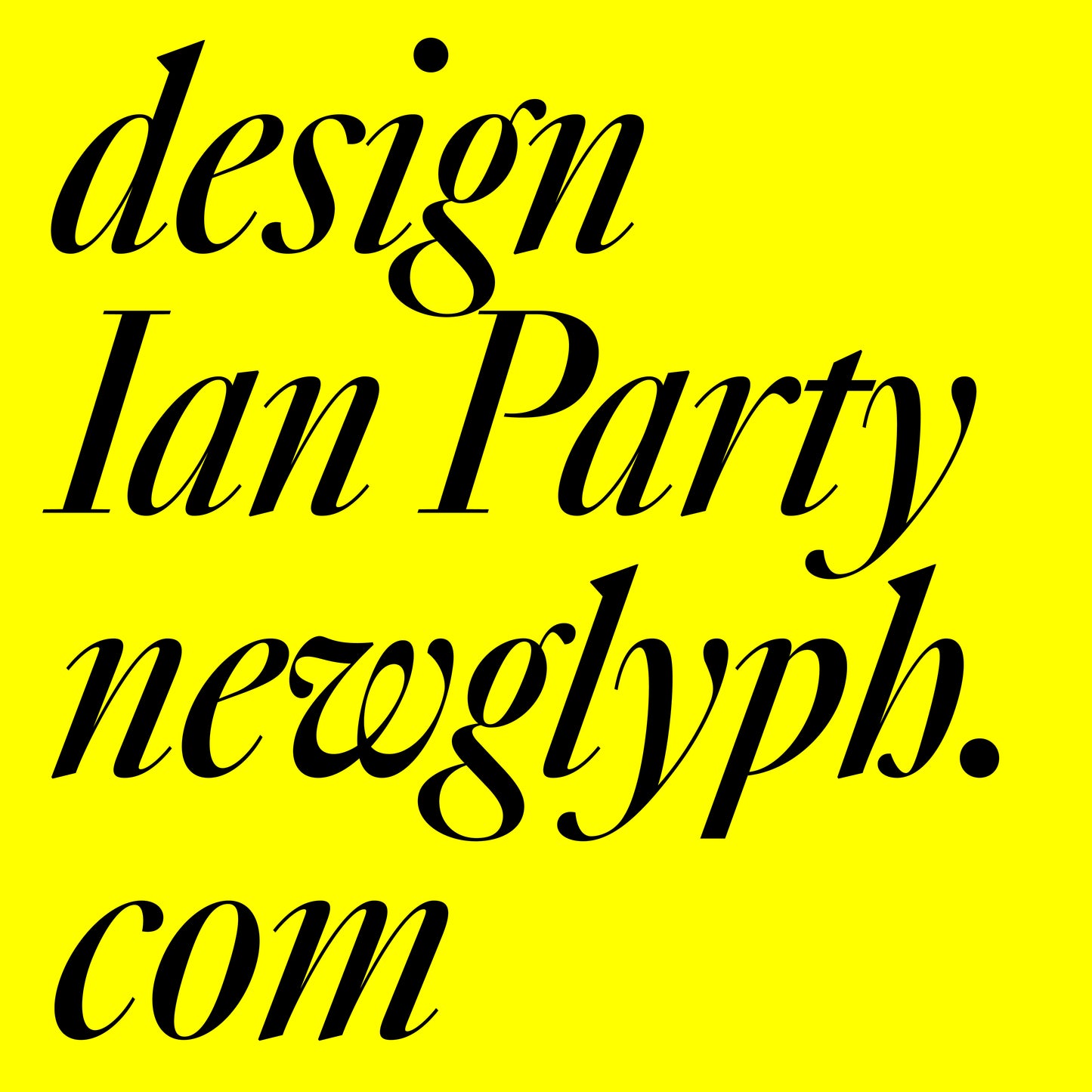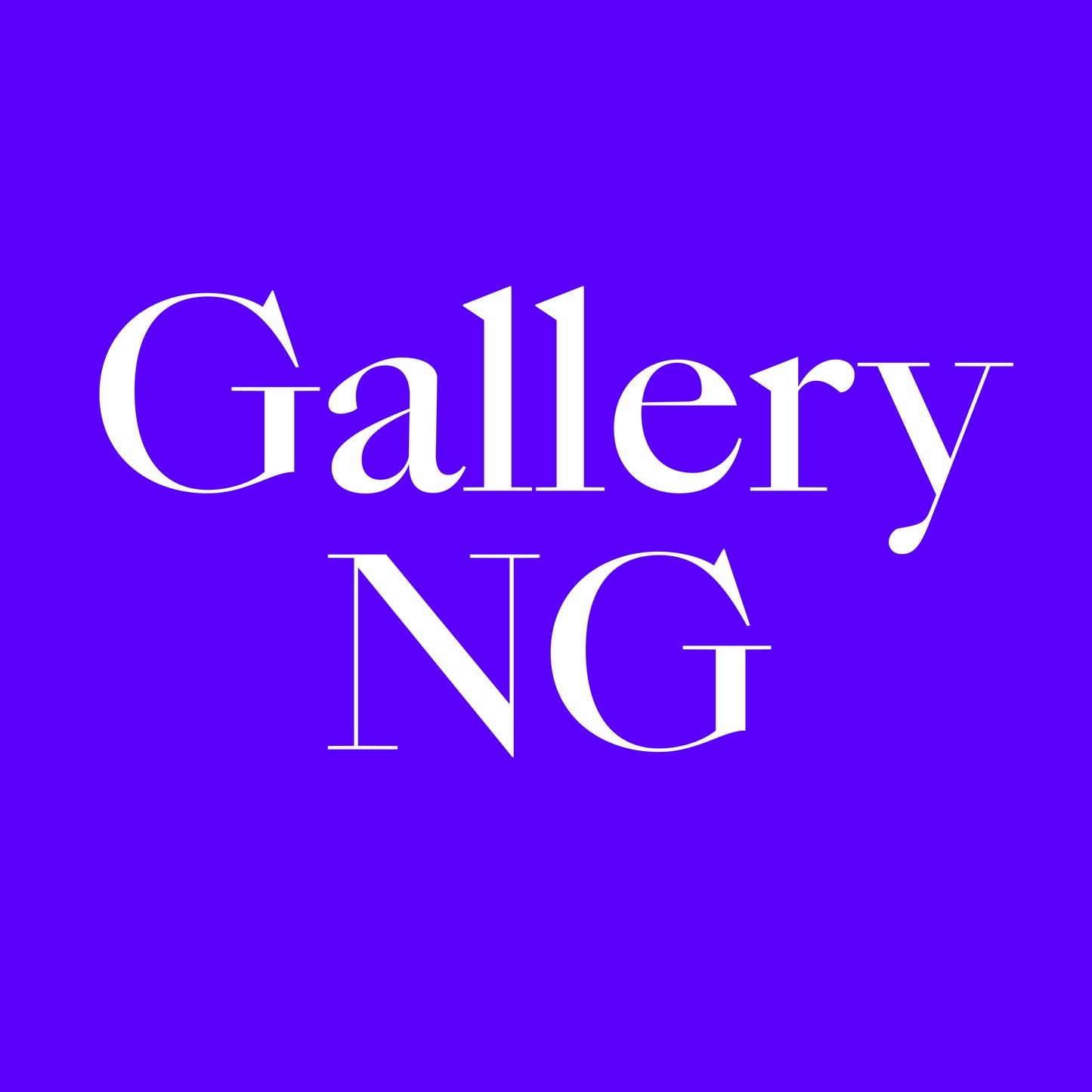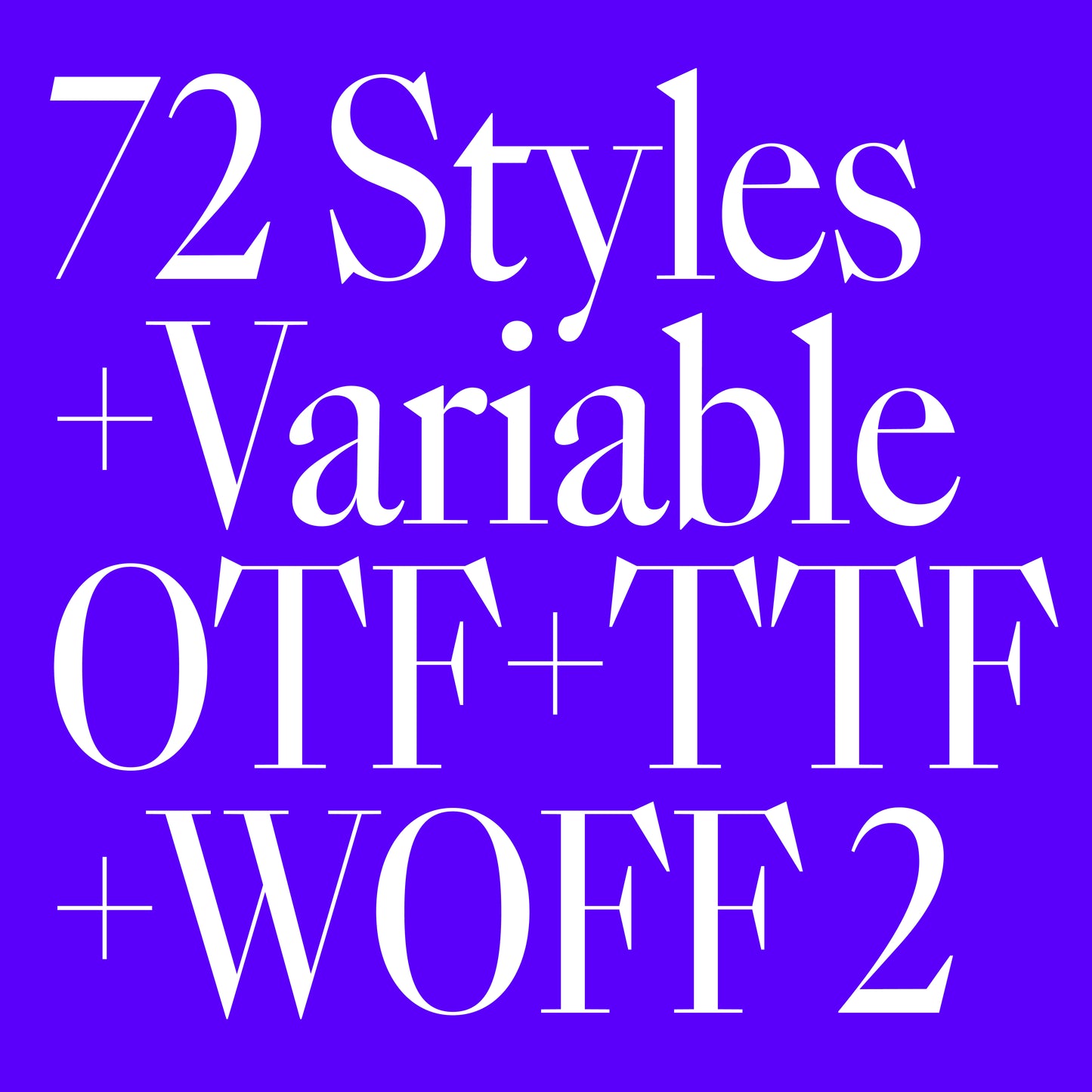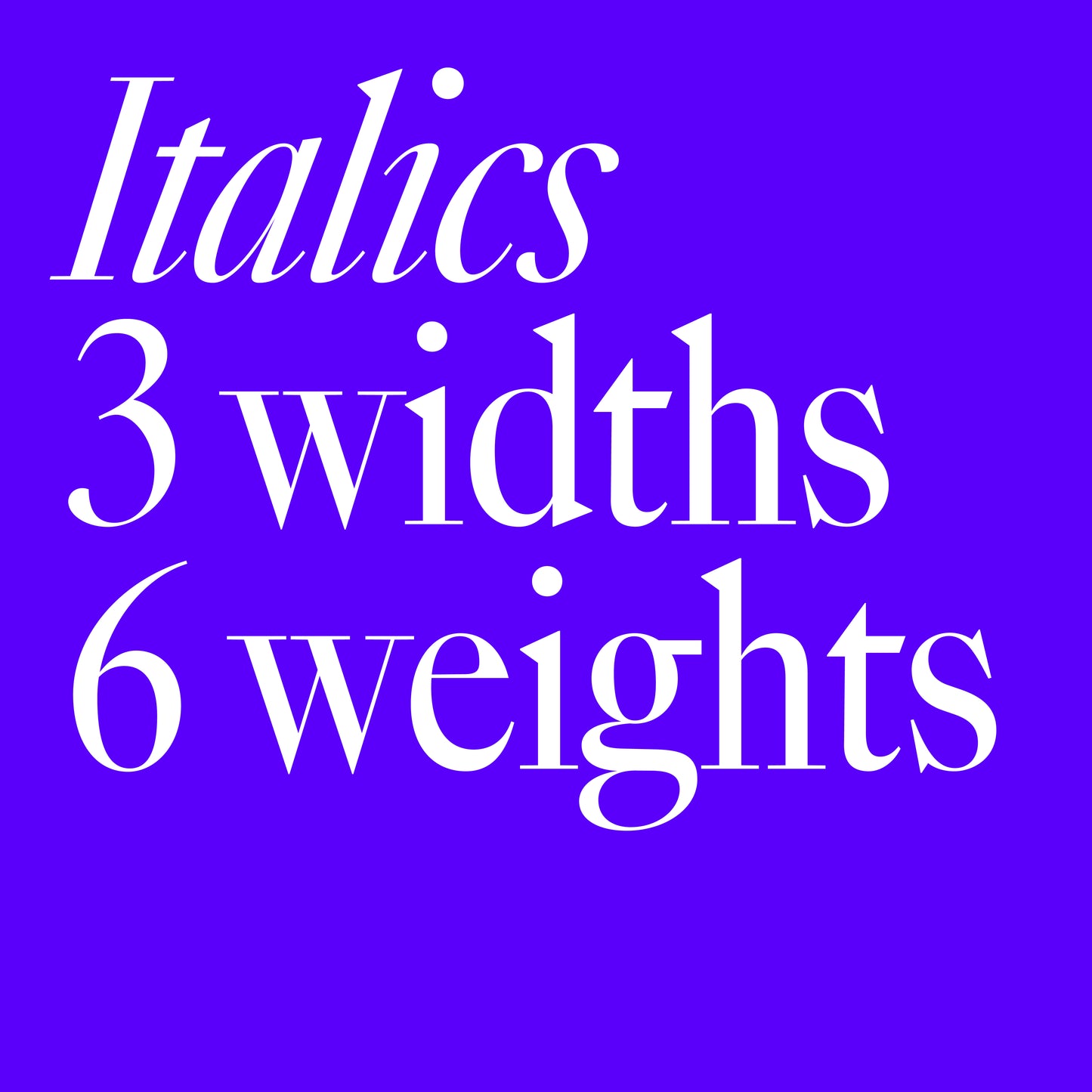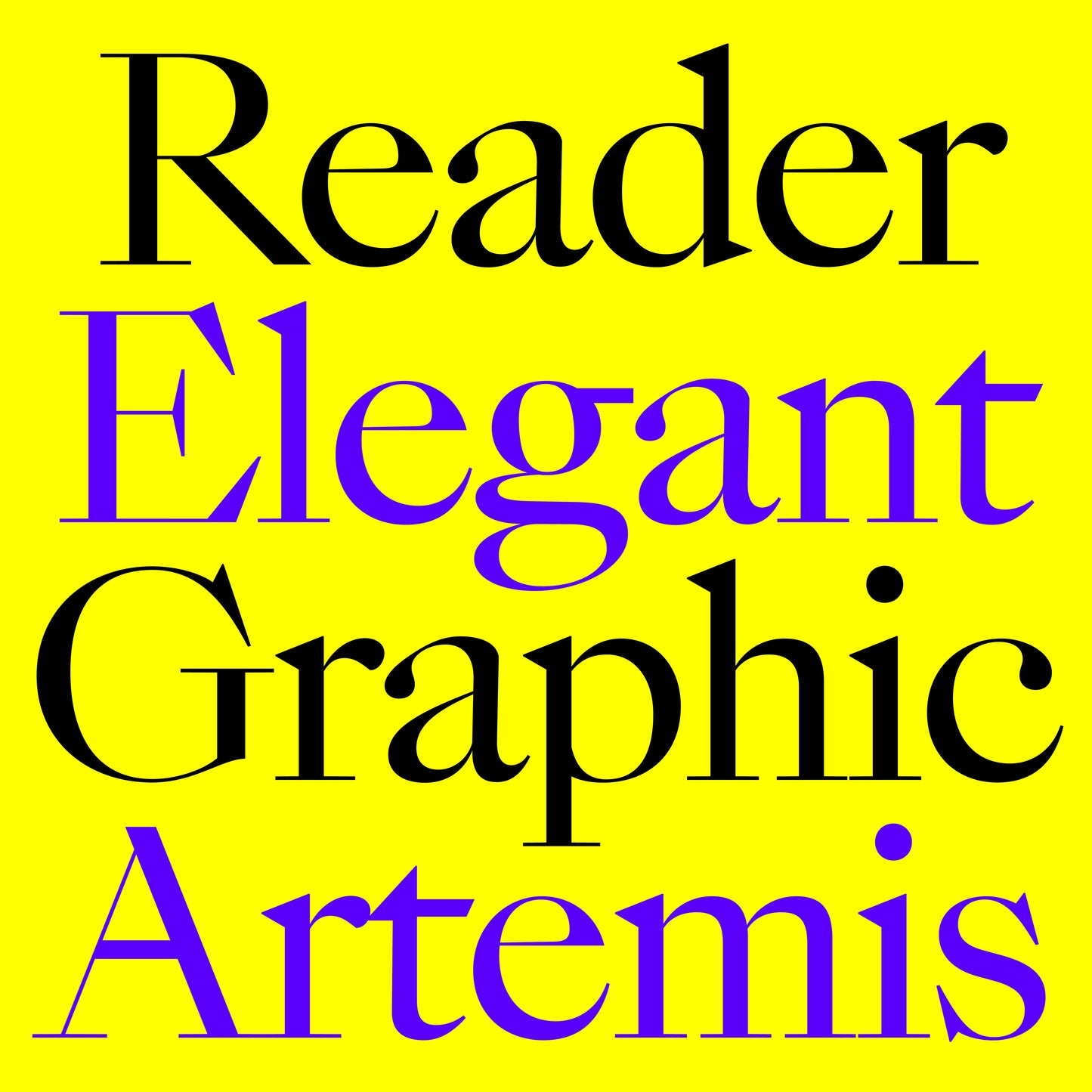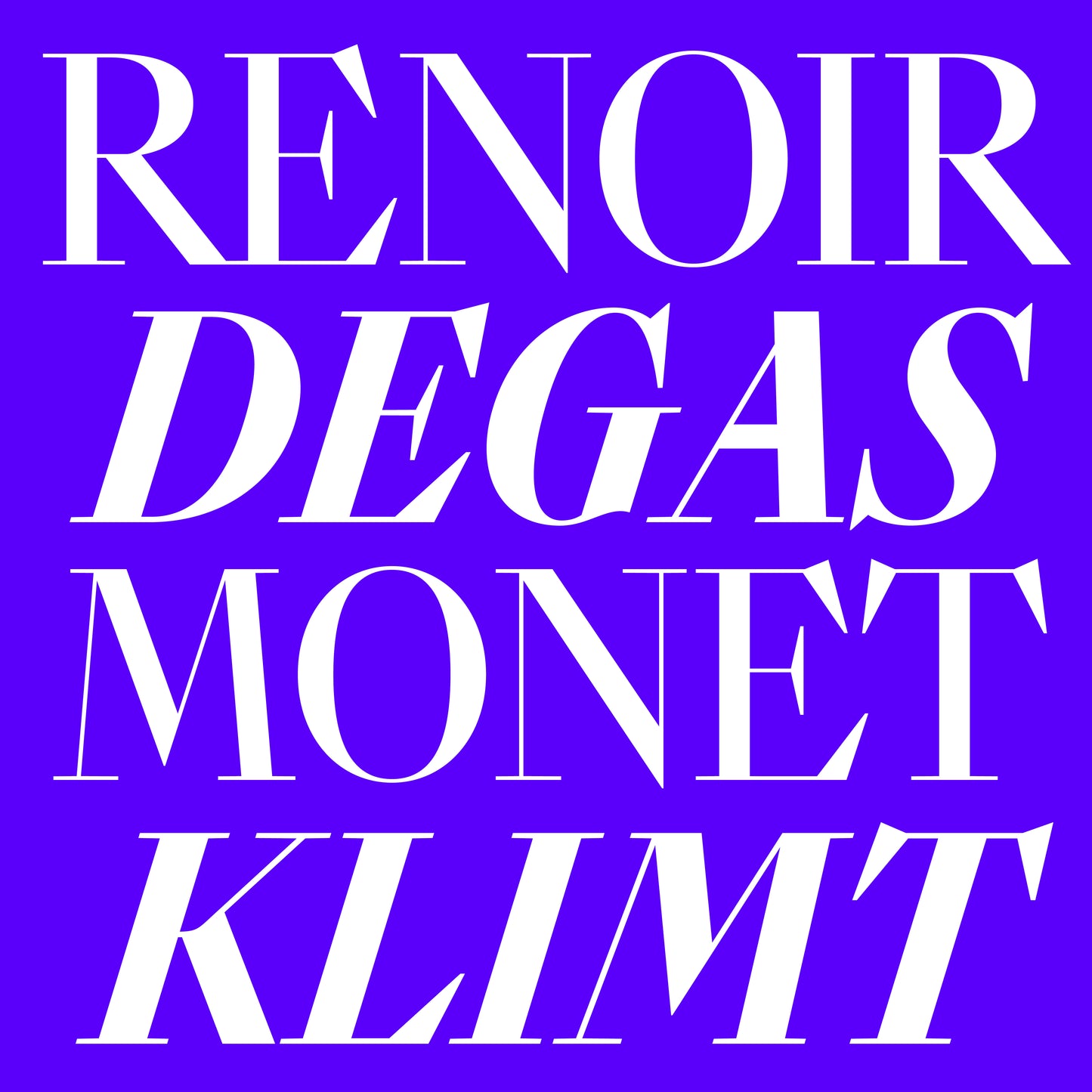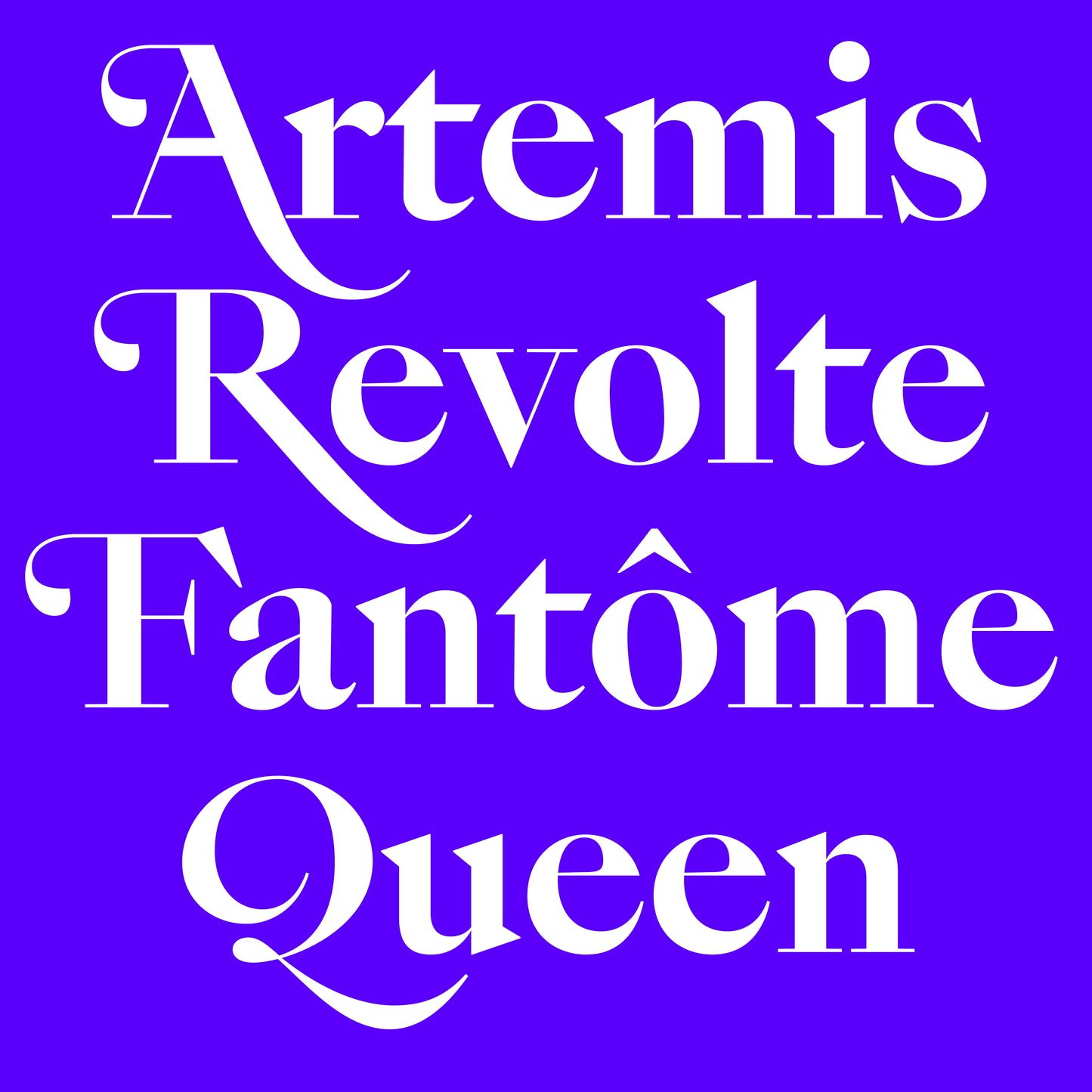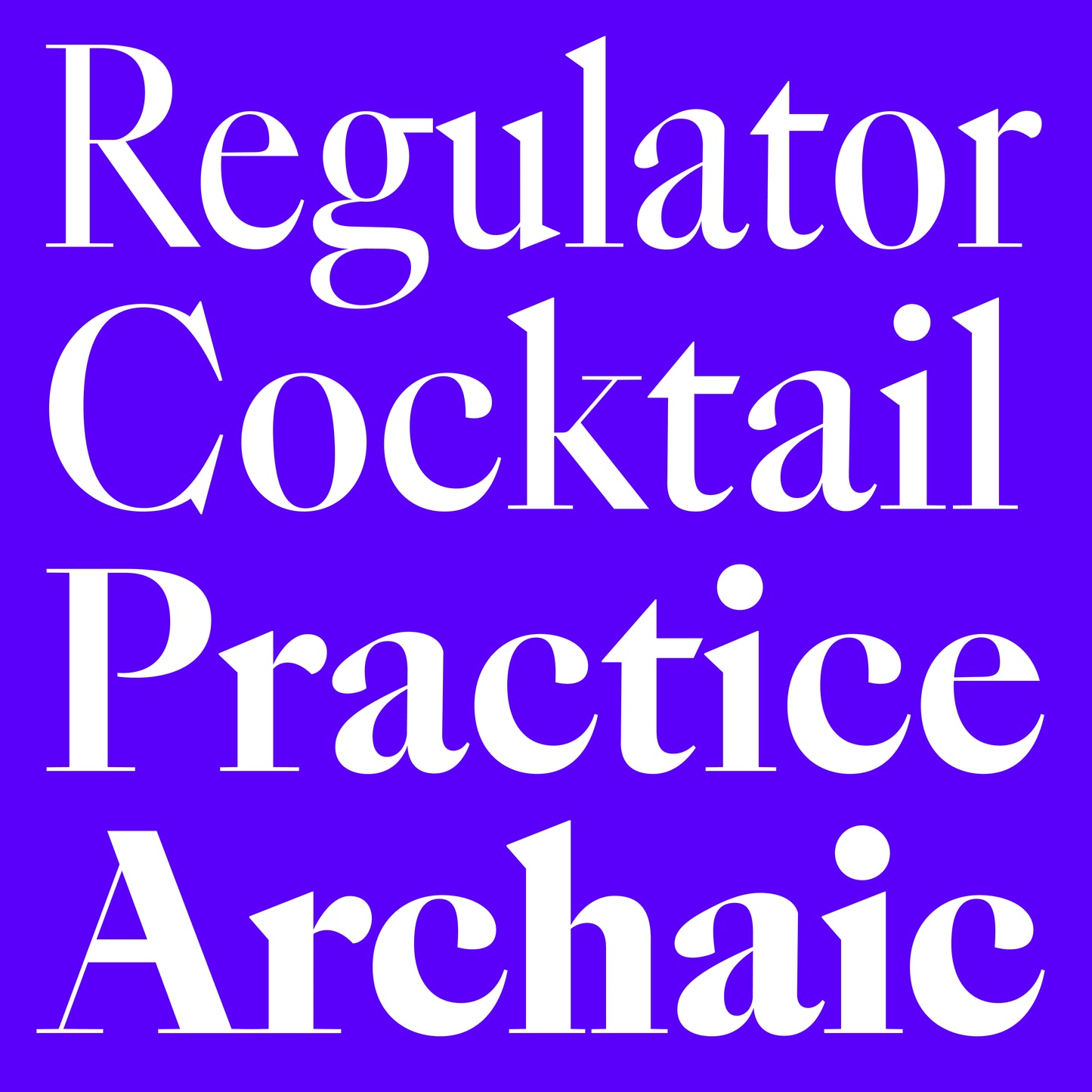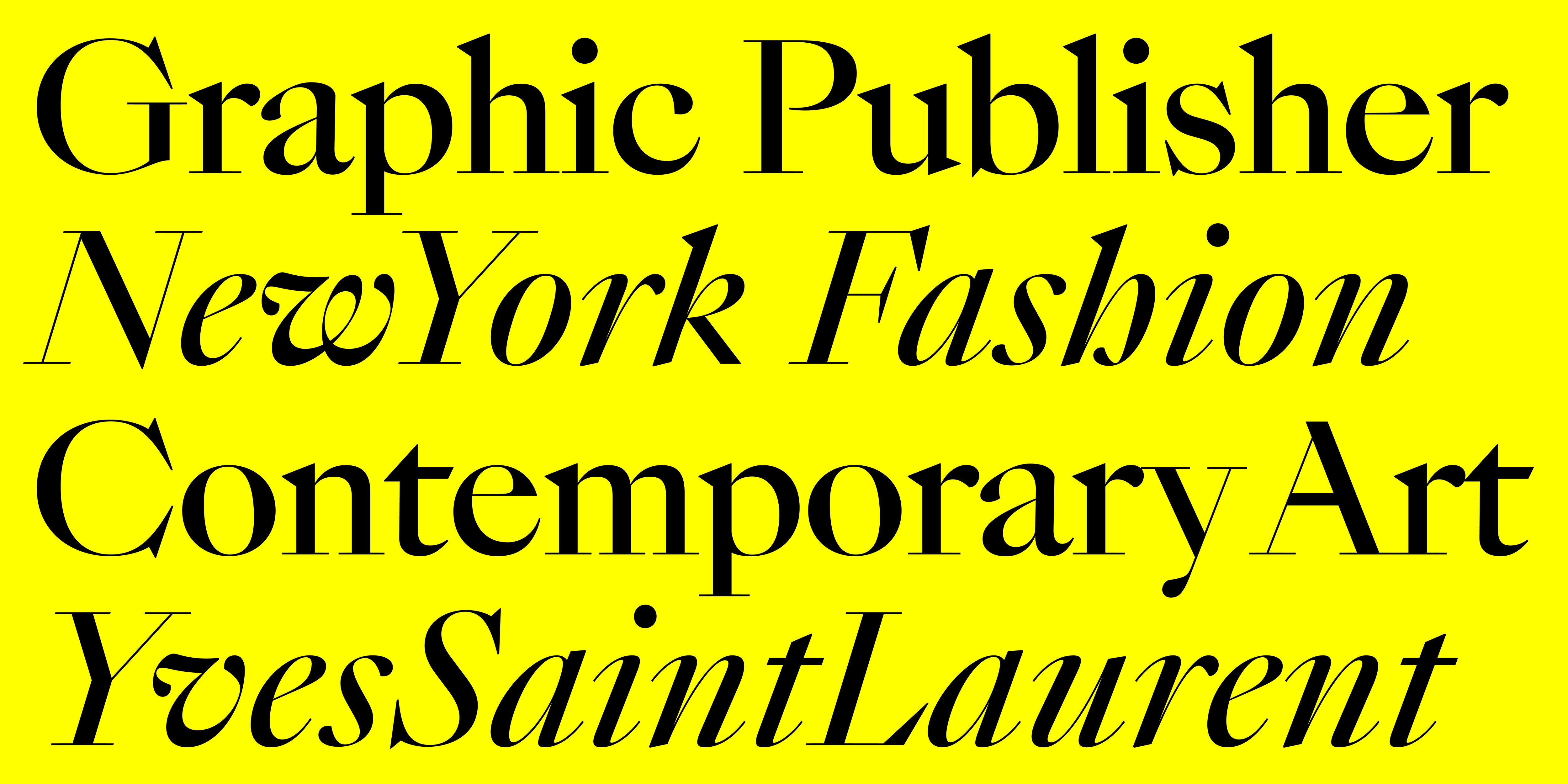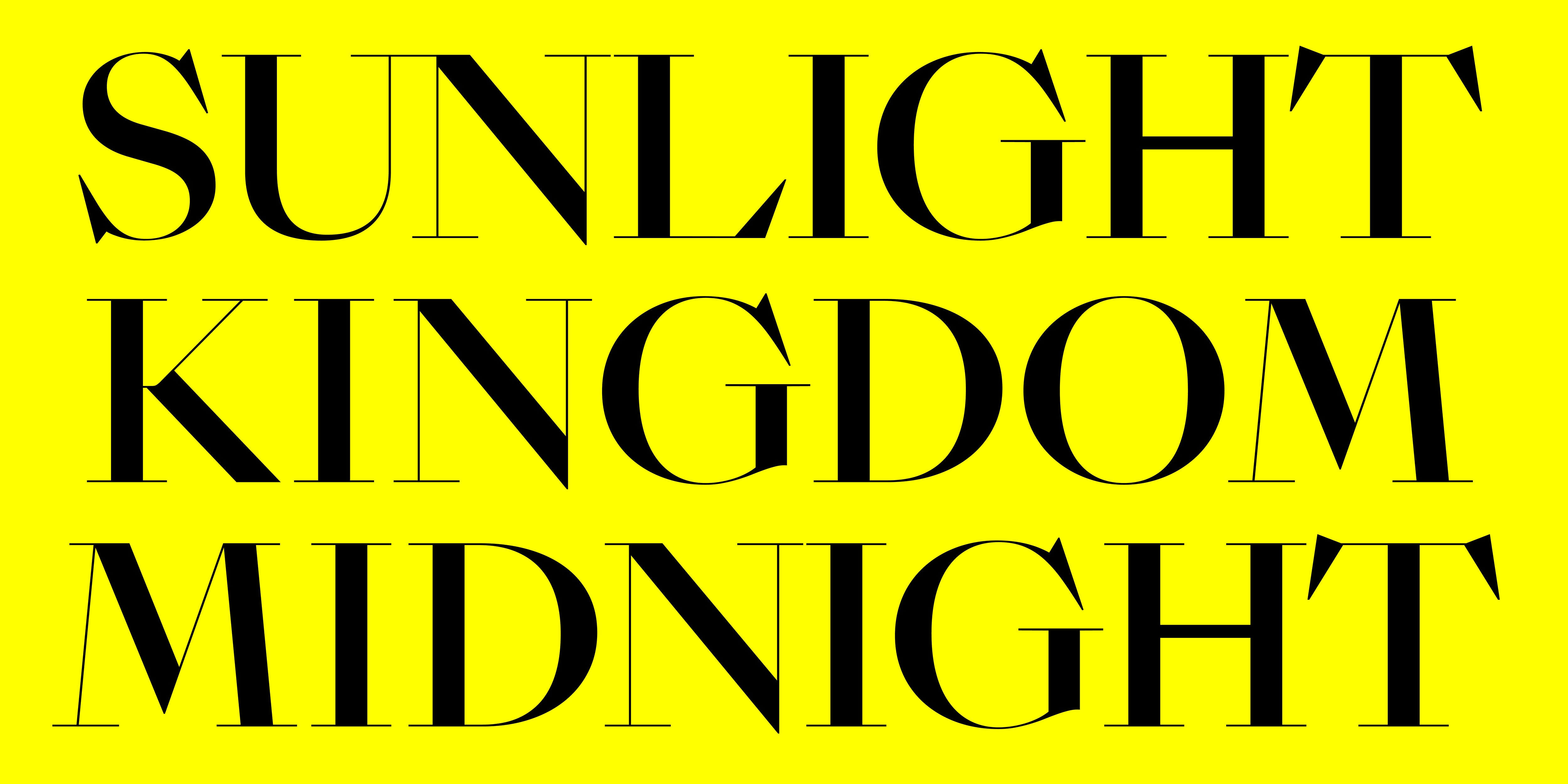
Gallery NG
Gallery NG, designed by Ian Party, is a 17th century variable typeface that blends historical elegance with modern expression. This typeface isn’t a revival—it’s a reimagining. With its bold proportions and striking contrast, Gallery NG feels right at home in high-fashion editorials, contemporary branding, and immersive digital experiences.
Like a curated exhibition, each weight and style in Gallery NG’s 72-style collection tells a different story, allowing designers to play with light and shadow, form and space. The variable font capability offers limitless flexibility, giving you control over weight and contrast for dynamic, customized typography.
Much like an artist balancing brushstrokes on a canvas, Gallery NG pairs refined elegance with expressive energy. Its sculptural curves, sharp serifs, and dramatic proportions make it an instant focal point—perfect for those looking to make a statement.
— VARIABLE
— ITALICS
— REGULAR, CONDENSED, EXTENDED STYLES
— PUNCTUATION & SYMBOLS
— DIACRITICS & LIGATURES